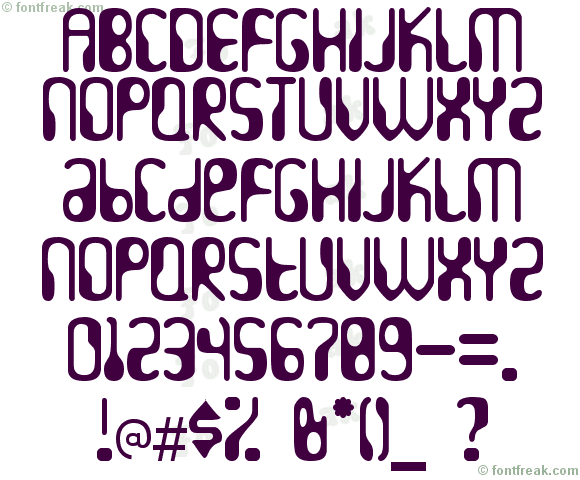
HydrogenWhiskey
Hydrogen Whiskey, designed by Ray Larabie in 1997 and updated in 2004, is a captivating display font that embodies a unique blend of modernity and artistic flair. This freeware typeface features a bold, sans-serif design with a distinctive personality, making it ideal for a wide range of creative applications. The font showcases a balanced stroke weight and moderate contrast, offering clarity while maintaining an engaging visual appeal. The character spacing is well-proportioned, ensuring readability even in larger formats, while its playful, rounded edges add a touch of friendliness to any project.
This font shines in various use cases, proving to be particularly effective for eye-catching movie posters, vibrant restaurant menus, and dynamic branding materials. Its unique aesthetic can also elevate event signage, making it a perfect choice for weddings or parties where a modern yet approachable style is desired. Graphic designers and content creators will find Hydrogen Whiskey to be a versatile asset for their projects, while small business owners can leverage its distinctive charm to create memorable marketing materials that resonate with their target audience.
What truly sets the Hydrogen Whiskey font apart is its ability to convey both professionalism and creativity. The design strikes a harmonious balance, making it suitable for both formal and casual contexts. Whether you're looking to craft an engaging advertisement or a stylish invitation, this font provides a fresh alternative to conventional typefaces. Plus, with a Hydrogen Whiskey font free download option available, you can easily incorporate this exceptional typeface into your design toolkit without any cost. Explore the possibilities of Hydrogen Whiskey and let its unique style enhance your creative endeavors.